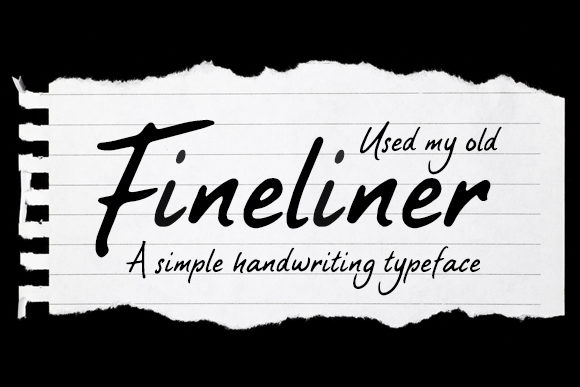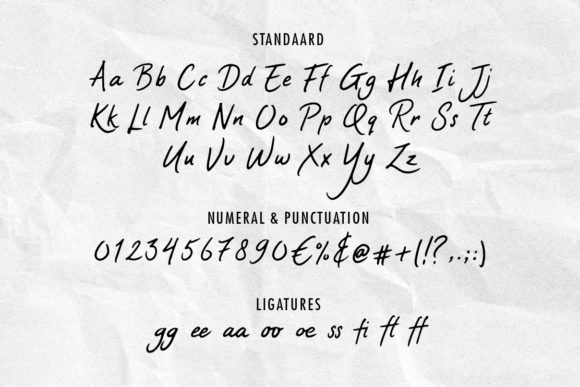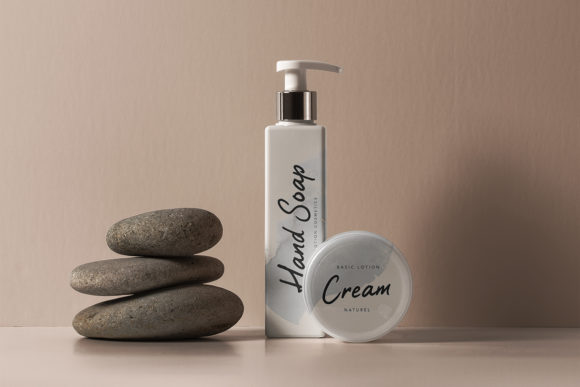
Fineliner Font
About Fineliner Font
Fineliner is a simple, yet effective script font that will turn any design project into a true standout. Get inspired by its unique charm, and turn any design idea into a true standout!